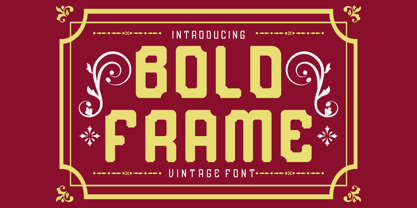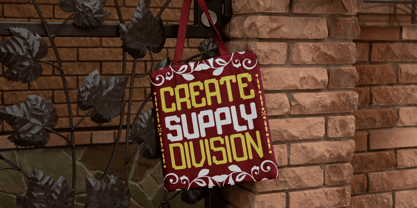
Bold Frame
by Shanaf
The Bold Frame Font Family was designed by Yesie Erma Yunita and published by Shanaf. Bold Frame contains 3 styles and family package options. More about this family
Bold Frame Vintage Font is designed with strong geometric letterforms combined with ornate vintage detailing. Each character carries a bold block structure with squared edges and subtle cut-ins, giving it a sturdy retro look. The font style reflects the elegance of vintage signage and old posters, making it both decorative and functional. With uppercase and lowercase options, it balances versatility and visual impact. This typeface stands out in layouts through its sharp bold strokes, ornate frames, and harmonious curves, making it suitable for projects that demand a classic yet commanding presence.
Ideal for branding and creative design, Bold Frame Vintage Font works beautifully for logos, posters, packaging, invitations, and book covers. It brings a nostalgic flair while remaining readable and modern in execution. Designers can use it for craft projects, business cards, greeting cards, stickers, and even film titles. Its decorative yet strong appearance adds personality to visual compositions, ensuring your designs stay stylish and unforgettable. With its retro character and timeless strength, this font is a perfect choice for anyone looking to blend tradition with creativity.
Designers: Yesie Erma Yunita
Foundry: Shanaf